5 · What are your love/hate glyphs when designing?
In the short experience I’ve had so far with Arabic, I had a tough time designing the medial “meem ممم” (the middle shape) and I really enjoyed letters with loops like “feh ف” “qaf ق” and “waw و”.
I like a lot of words in general; I think that’s the reason I was drawn to type. My favourite Arabic word is “soukoun”, which roughly translates to something meaning stillness, tranquility, and quietude. I personally describe it as the feeling I get when I am under water or when I’m floating and the sounds around me become faint. It’s also the name a vocalisation mark in Arabic (this one: ْ  ) and I find that super amusing.
9 · What is the most amazing script you have worked with and why?
I really enjoy working with Arabic because of the various ways the shapes can take form — how the letters, vocalisation marks, and diacritics can be used in both functional and aesthetic ways. I’m still learning how to use different scripts and their specifications in design work and I find something fascinating in each of them.
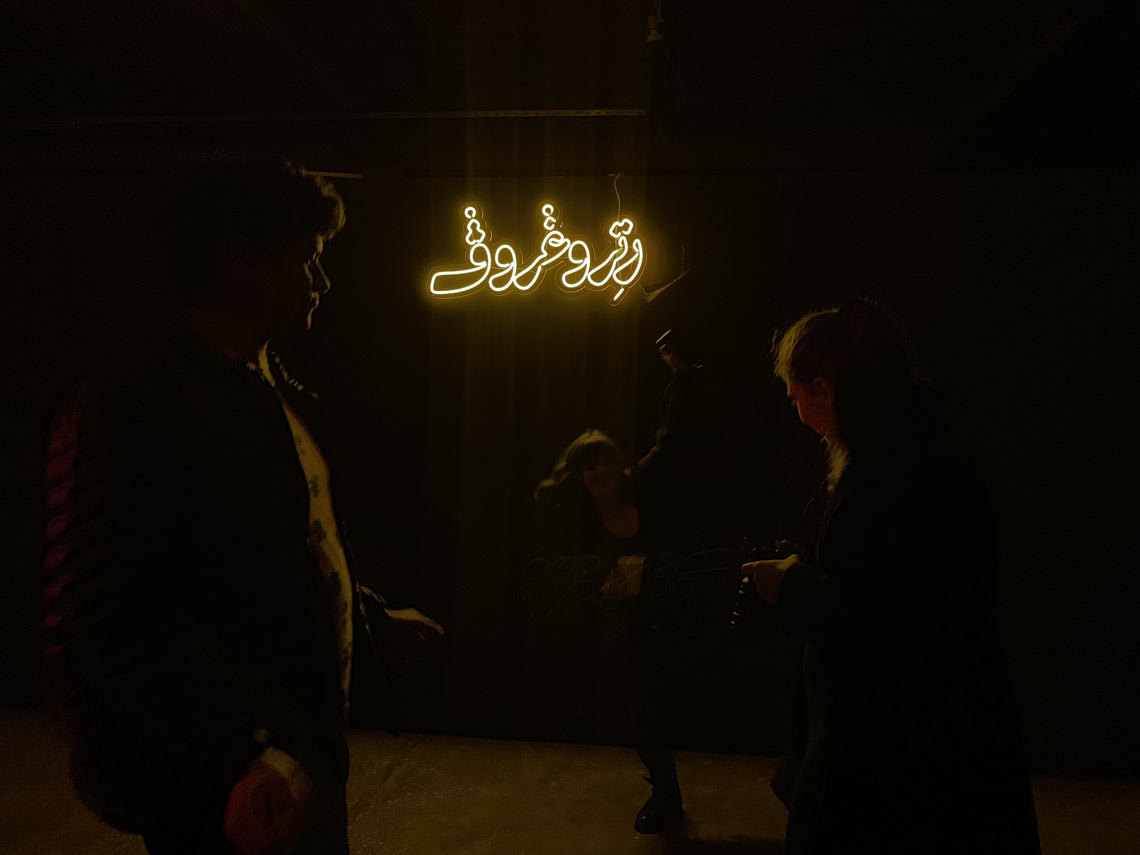
Neon sign she designed for Retrogroove Collective.